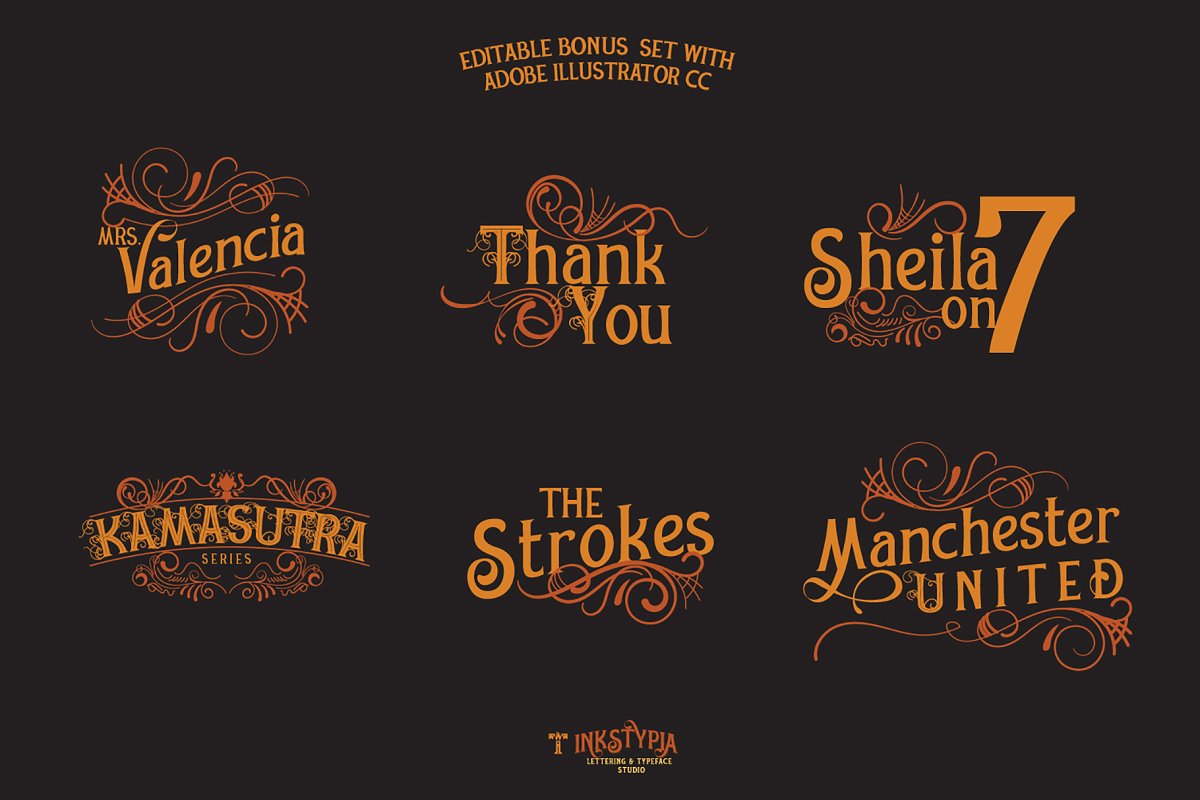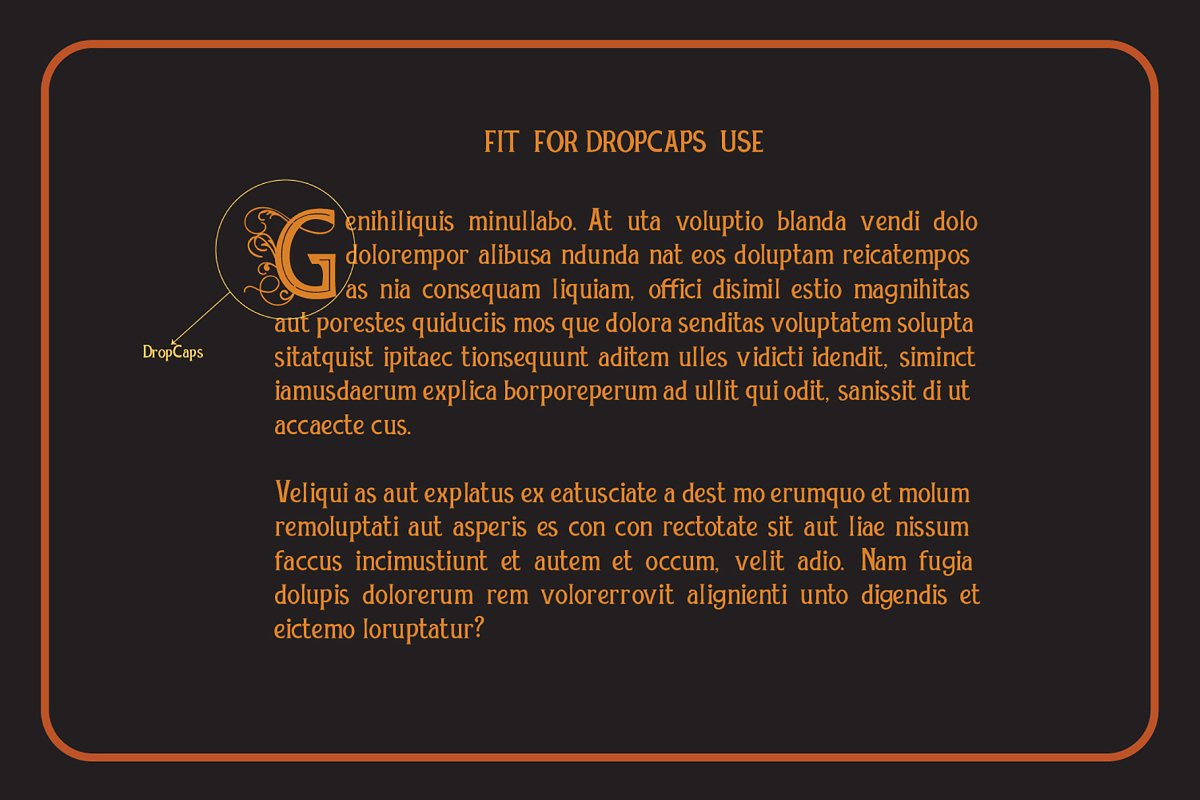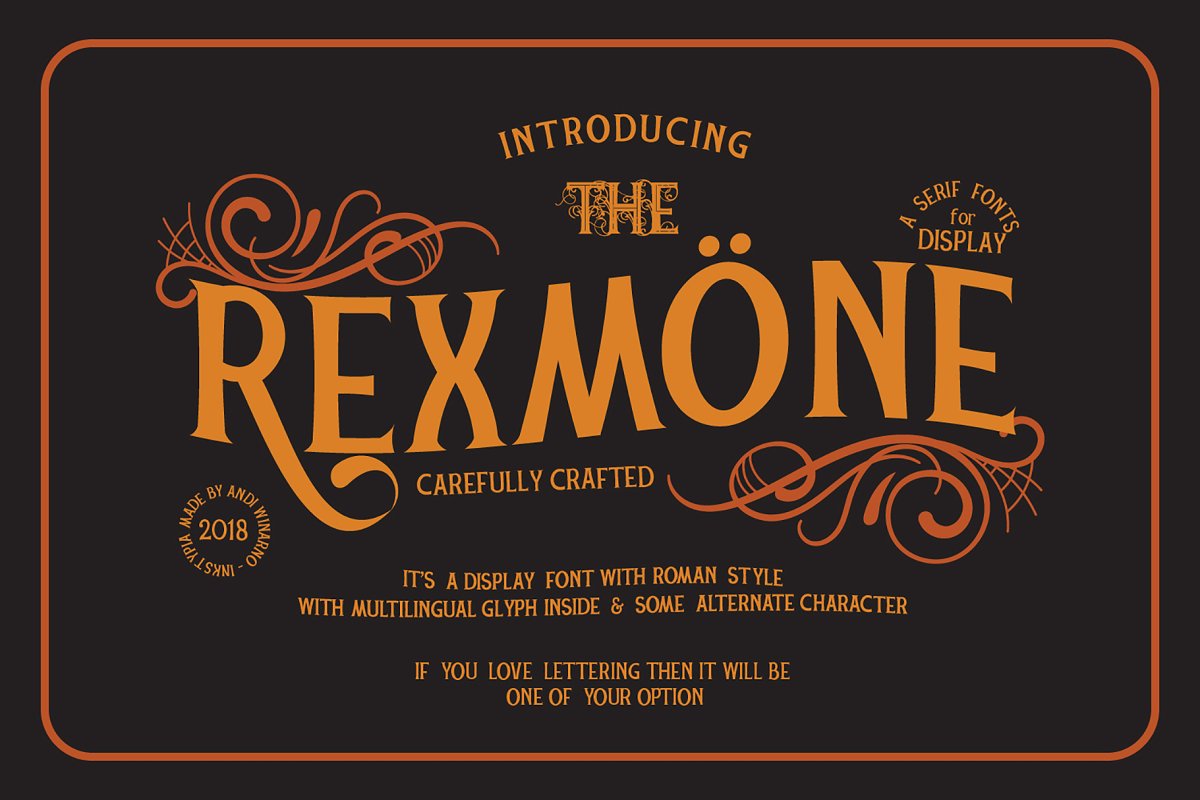
REXMONE Typeface
A new serif typeface. If you are having trouble finding fonts for your design project, please refer to this font. Introducing REXMONE Font. It’s designed and shared by INKsTYPIA. REXMONE Typeface is a serif display font with roman style, available on True Type / Opentype Format, it has multilingual feature and alternative character. If you like to use it for your Badge, Poster, Lettering Work, Label design, so it can be your another option.